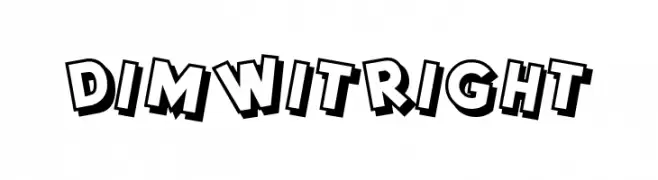
A bold, playful font with a 3D shadow effect, ideal for fun and engaging designs.
( Fonts by Daniel Gauthier )
A bold, playful font with a 3D comic book style.
( Fonts by Rich Gast - www.greywolfwebworks.com OFF SITE )